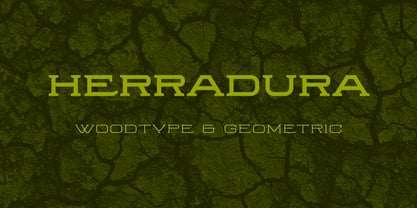
Herradura Font
Herradura Font is perfect for Mexican restaurant branding, Latin American cultural events, southwestern design projects, tequila distillery marketing, authentic cantina signage, and traditional Hispanic heritage celebrations. This distinctive typeface excels in mariachi band promotions, fiesta event materials, southwestern art galleries, and any application where Latin American tradition and vibrant cultural heritage create authentic cultural connections.
What makes Herradura Font so exciting is its masterful ability to capture the passionate spirit and rich cultural heritage of Latin America through bold, tradition-inspired letterforms. The font features horseshoe-influenced curves, festive proportions, and cultural character shapes that evoke the warmth of Mexican hospitality and the vibrancy of Latin celebrations. Its authentic heritage makes it perfect for brands celebrating genuine Latino culture and traditions.
Herradura Font comes in a festive family including Light, Regular, Medium, Bold, and Fiesta weights. Each style features complete uppercase and lowercase character sets, cultural symbols, traditional numerals, and celebration punctuation marks. The font family also includes decorative alternates, mariachi ligatures, and horseshoe variations that allow designers to create truly authentic Latin American communications with cultural respect and professional quality.
The font's cultural authenticity makes it particularly effective for Latin restaurants, cultural centers, southwestern retailers, and Hispanic heritage organizations. Its bold readability ensures that Herradura Font communicates clearly while maintaining its distinctive cultural personality. The font's ability to evoke celebration and cultural pride makes it an invaluable horseshoe for any project seeking to honor Latin American heritage and connect with audiences through the universal appeal of vibrant culture, traditional hospitality, and the enduring strength of Hispanic community values.